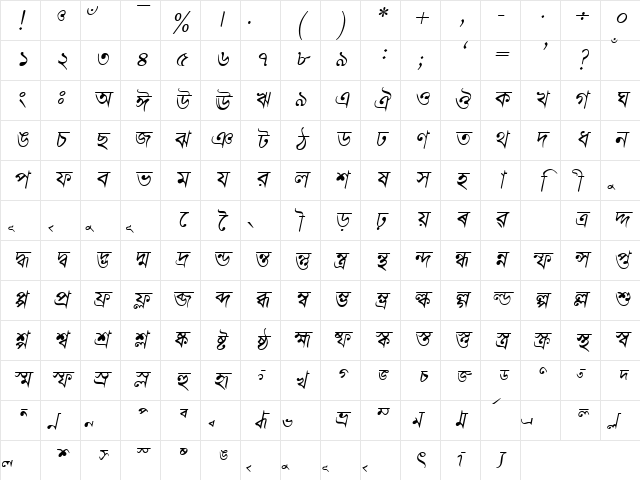
BengaliDhakaSSK Italic
Design Context for BengaliDhakaSSK
BengaliDhakaSSK is a composed and adaptable typeface that performs quietly and consistently across a wide range of design contexts. The slanted form adds forward momentum and visual energy.
Pro Tip: Use BengaliDhakaSSK for emphasis, pull quotes, and subheadings where its slanted energy can add rhythm to the layout.